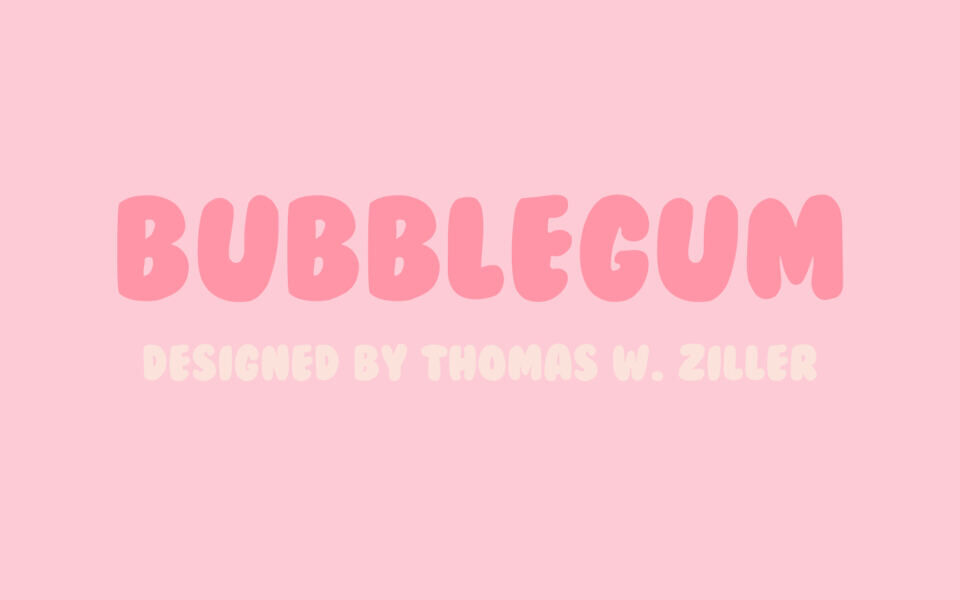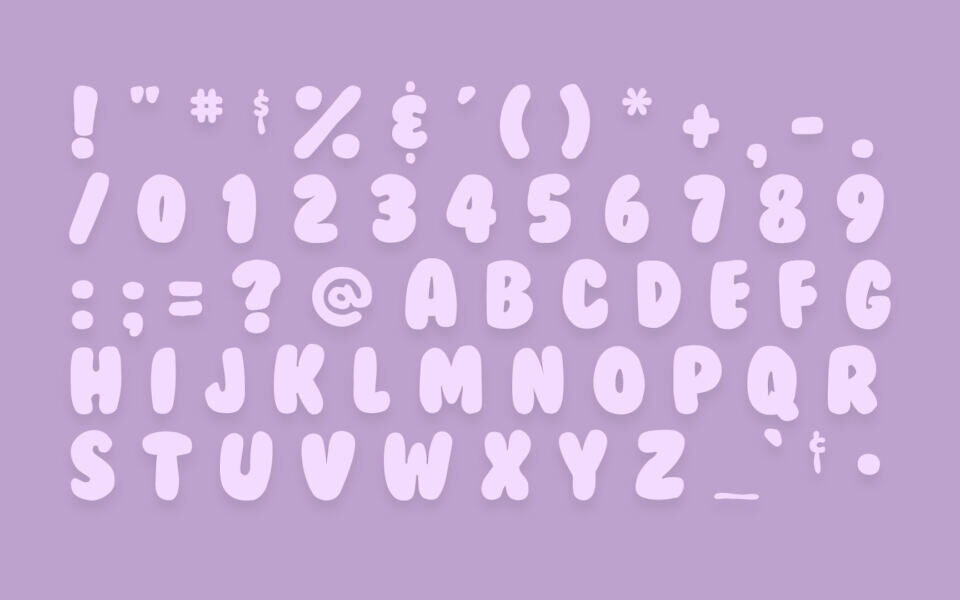
BubbleGum, created by Thomas W. Ziller, is a playful and whimsical typeface. Characterized by its rounded, voluminous letterforms, it offers a fun, energetic aesthetic perfect for children’s designs, comics, or any creative project needing a friendly, lighthearted touch. Its distinctively bubbly appearance makes it a popular choice for informal displays where readability meets a lively, approachable personality.